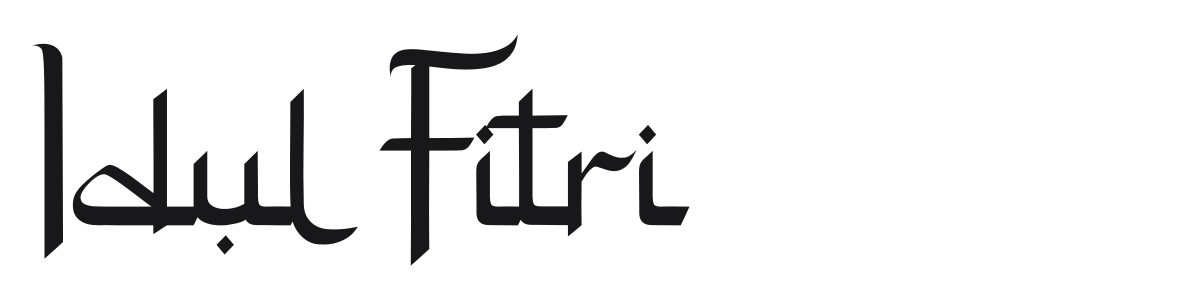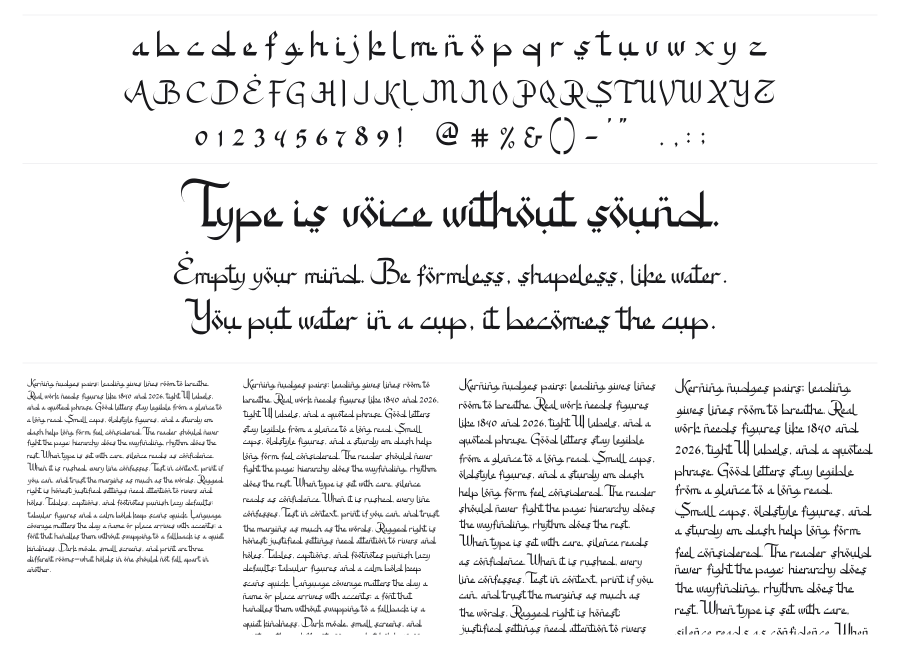
Idul Fitri
Idul Fitri is a bold Latin display font styled after Arabic calligraphy, blending the angular geometry of Kufic script with flowing connected strokes. The result is a distinctly festive character that immediately evokes Eid and Ramadan celebrations. It works best at large sizes where the sharp terminals and calligraphic rhythm can make a strong visual impact.